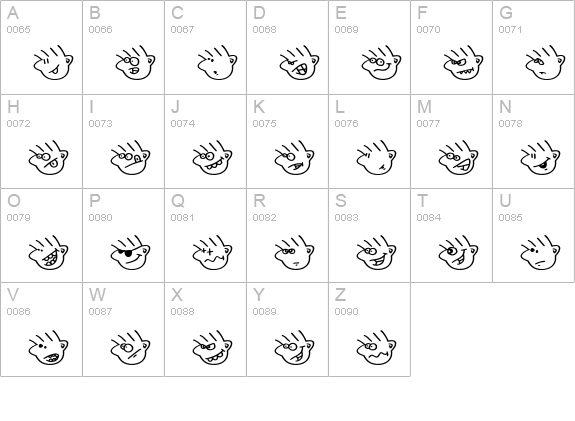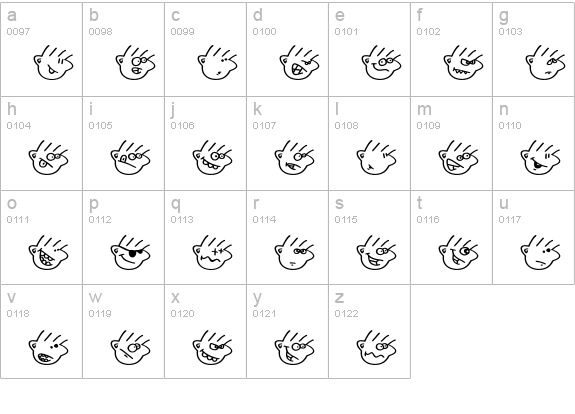
Many moods of Moe Font Details
Many moods of Moe font is a versatile and expressive typeface that captures the essence of various emotions and personalities. With its wide range of characters and unique letterforms, this font allows you to convey different moods with ease. Whether you want to express joy, sadness, excitement, or any other emotion, Many moods of Moe font has got you covered. Its carefully crafted letterforms evoke a sense of emotion and bring your words to life on any project. This font is perfect for a variety of design projects, including branding, advertising, social media graphics, and more. Its flexibility allows you to create eye-catching headlines, captivating logos, and engaging typography that leaves a lasting impression on your audience. What sets Many moods of Moe font apart is that it is freely available to download at FontsMarket.com. This means that you can utilize its vast range of emotions and personalities without any cost. It's a font that not only adds value to your designs but also saves you money. So why wait? Download Many moods of Moe font today and explore the endless possibilities it offers. Let your creativity flow and express your thoughts and feelings through captivating typography. With Many moods of Moe font, your designs will truly speak to the hearts and minds of your audience.